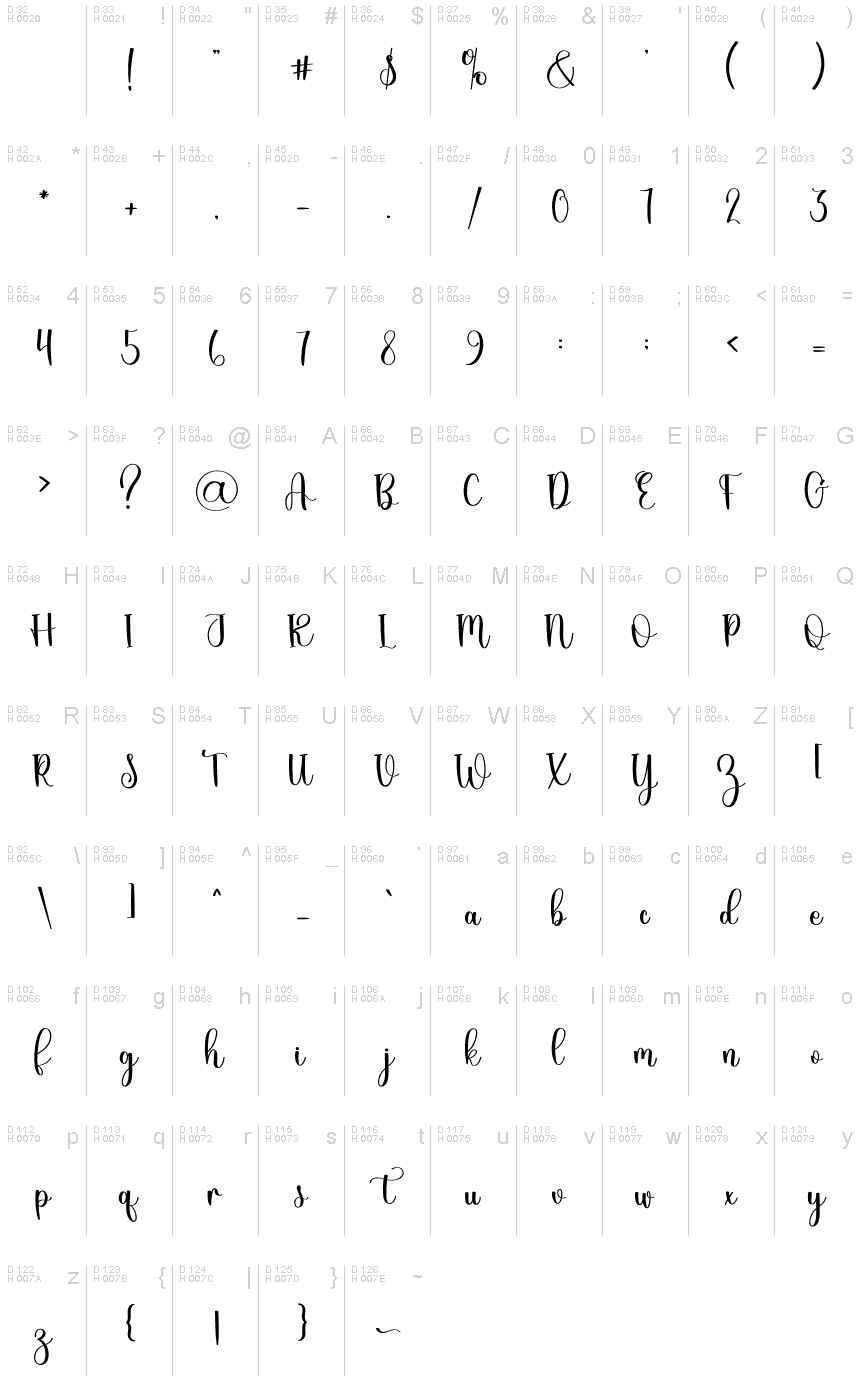
Wintersmiles
Wintersmiles, crafted by renowned designer FreshtypeINK, is a mesmerizing calligraphy font that exudes elegance and grace. Its semi-light weight adds a touch of delicacy, making it perfect for wedding invitations, greeting cards, and feminine branding projects. With its flowing strokes and charming curves, Wintersmiles effortlessly captures the essence of romance and sophistication. Whether you're designing a whimsical logo for a boutique florist or creating stunning typography for an enchanting blog header, this font will infuse your projects with a captivating allure. Let Wintersmiles transform your designs into works of art that evoke joy and warmth.